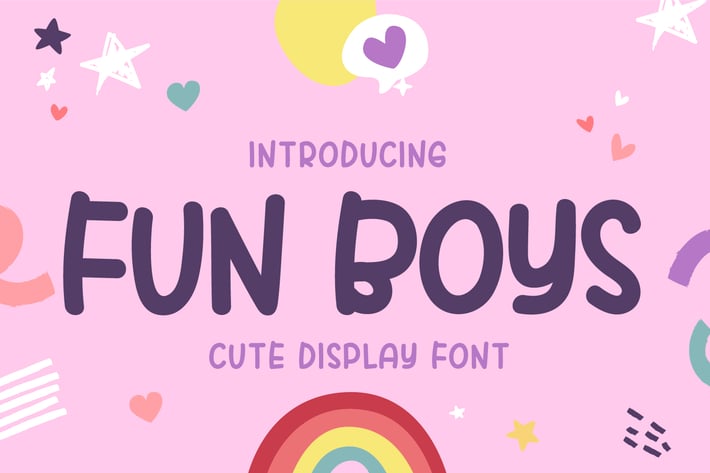
Fun Boys - Cute Handwriting Display Font
Introducing Fun Boys - Cute Handwriting Display Font
Fun Boys is a fun and cute display font that fits perfectly into anything. Masterfully designed to become a true favorite, this font has the potential to bring each of your creative ideas to the highest level!
This font is perfect for quotes, shirt designs, websites, branding, children’s designs, blogs, logos, invitations and more!